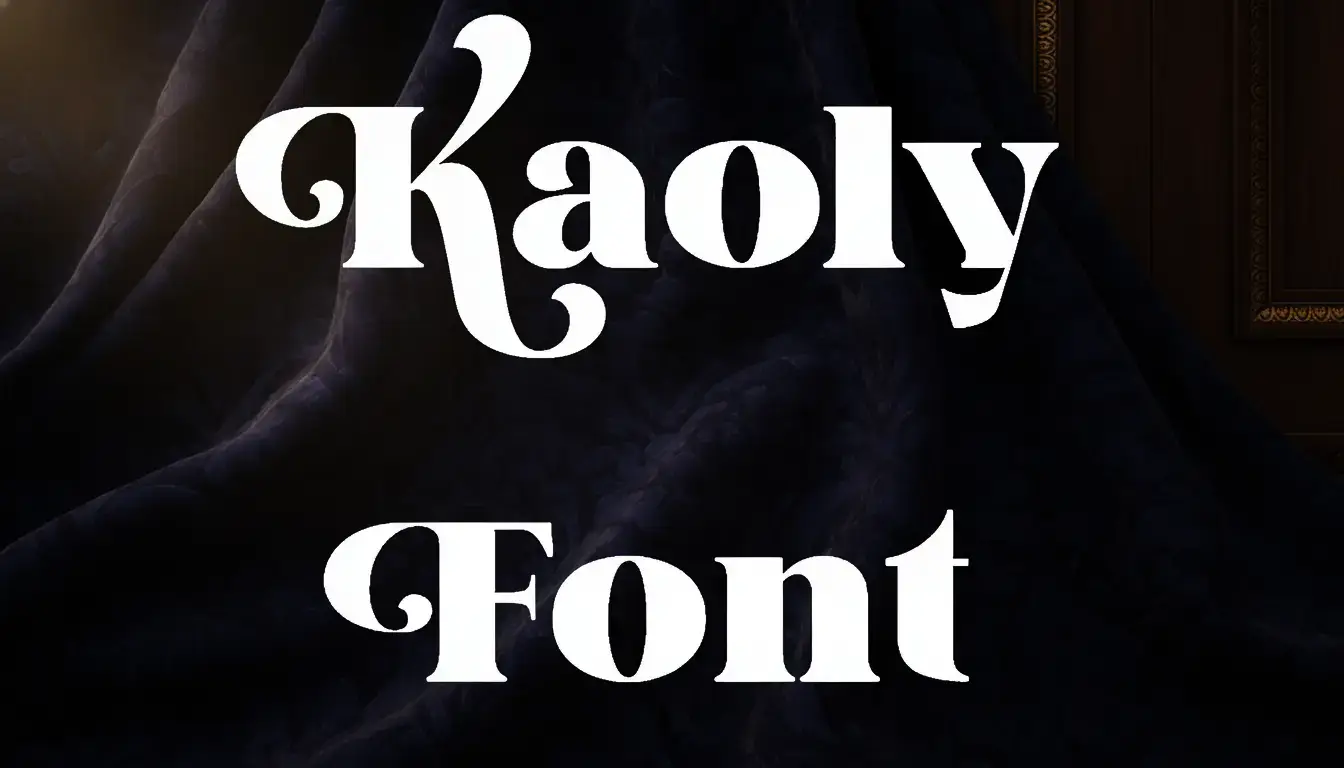
Kaoly Font
Kaoly
Kaoly is a fancy font designed by Kadek Mahardika. Bold and full of character, it's built to stand out rather than blend in. You can download it for free and test it with your own words in the preview above.
You get every letter from A to Z in both cases and all the numbers from 0 to 9, which means Kaoly can handle full sentences, dates and prices. Common punctuation such as &, !, ? and @ is included as well. It doesn't include accented letters such as é or ñ, which makes it an English-only font.
Kaoly is a natural fit for posters, logos and eye-catching headlines. Use it for one standout word or headline and let simpler fonts handle the rest.
No. Kaoly has no accented letters such as é, ñ or ü, so it's best for English text.